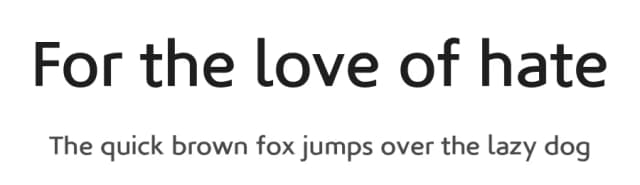
About For the love of hate Alternate Font
For the love of hate Alternate is a sans-serif font designed by Peridot Kitchen-Sink. It includes 248 glyphs, a regular weight, OTF (CFF) format, and 217 languages. For the love of hate Alternate is free to download; check the license details on this page before commercial use. Sans-serif fonts like For the love of hate Alternate work best for clean body text, user interfaces, branding, and modern layouts.
For the love of hate Alternate Font is a versatile sans-serif font that works for both headings and body text. Pair it with a contrasting serif or slab serif font to add visual interest and a clear distinction between titles and body copy.
For the love of hate Alternate Font
For the love of hate Alternate Font is a sans serif typeface by Peridot Kitchen-Sink, ideal for logos, invitations, branding, and creative projects.